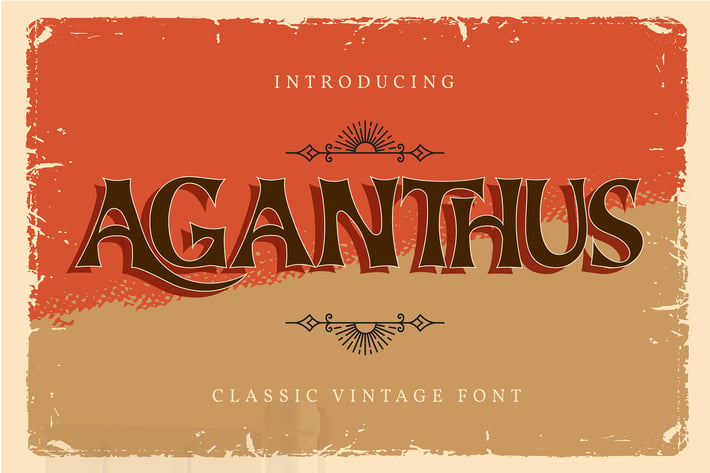
Aganthus | Classic Vintage Font
Aganthus | Classic Vintage Font with a calligraphy style, So beautiful on invitation like greeting cards, branding materials, business cards, quotes, posters, and more!